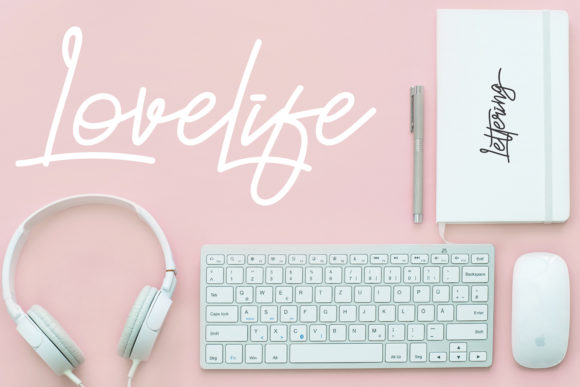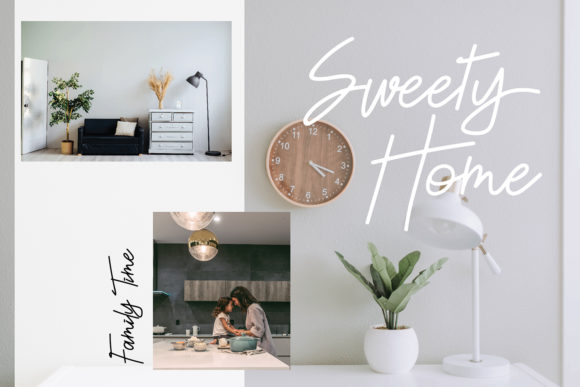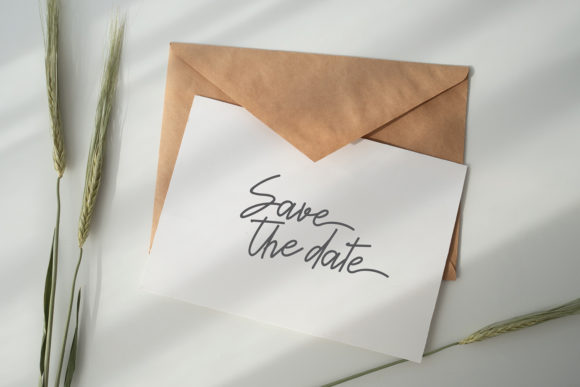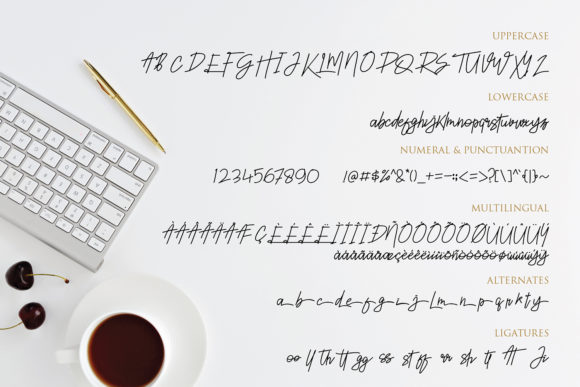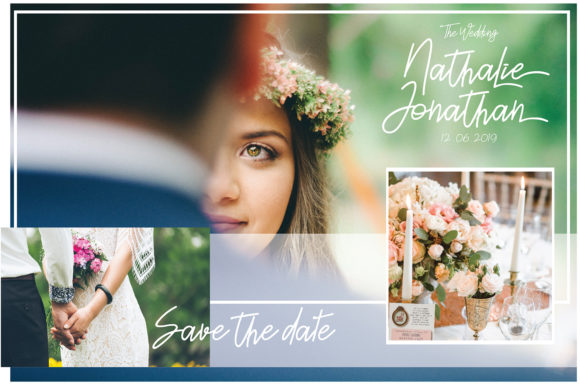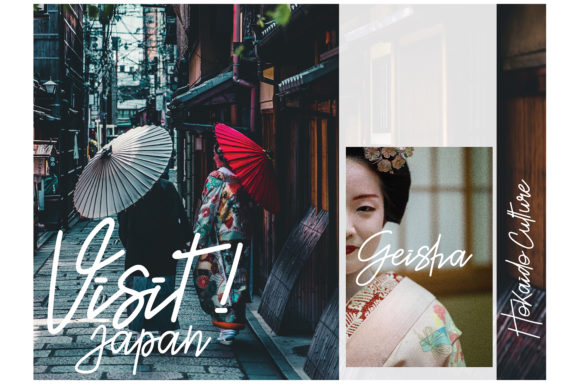
Introduction to Lomesty Font
Have you ever stared at a blank canvas, wondering where to begin on your next creative project? The cursor blinks, and your mind goes blank. But then, the spark strikes. You envision the perfect font to bring your design to life – and that’s where Lomesty Font comes in.
Lomesty Font is a delightful script font that exudes classic charm with a friendly twist. Its timeless style makes it the perfect addition to any design project, from wedding invitations to social media graphics. Whether you’re working on a free download or a high-end campaign, Lomesty Font’s versatility is unmatched.
For designers, having access to a high-quality font like Lomesty Font is invaluable. It saves time, boosts creativity, and elevates your designs to the next level. With its transparent background and seamless integration, Lomesty Font is a design resource you won’t want to live without.
Key Features of Lomesty Font
- Features a unique, eye-catching design that adds a touch of sophistication to any project.
- Perfect for designers, artists, and creatives looking for a high-quality design resource to elevate their projects.
Honest Review: Lomesty Font
As a designer, I’m always on the lookout for high-quality design resources to elevate my creative projects. Recently, I had the chance to try out the Lomesty Font, and I must say, it’s been a game-changer.
- ✨ High-quality design: The Lomesty Font boasts a sleek, modern design that’s perfect for any creative project.
- ✨ Transparent background: This feature makes it incredibly easy to use the font in any design scenario, from graphics to web design.
- ⚠️ Limited font styles: While the Lomesty Font is a high-quality design, it’s limited to a single style, which might not be ideal for designers who require a range of options.
Overall, I’m thoroughly impressed with the Lomesty Font. It’s a fantastic addition to any designer’s toolkit, and I highly recommend it to anyone looking for a high-quality, free design resource. With its sleek design and transparent background, it’s perfect for a wide range of creative projects.
Using in Creative Projects
With the Lomesty Font installed, you’re ready to use it in your creative projects. This versatile design resource is perfect for a variety of applications, including logos, branding, and marketing materials.
Tips for Getting the Most Out of Lomesty Font
For optimal results, use the Lomesty Font in combination with other design elements to create a cohesive and visually appealing design. Experiment with different font sizes, colors, and layouts to find the perfect balance for your project.
The Lomesty Font is ideal for a wide range of creative projects, including business cards, brochures, and social media graphics. Its unique style and high-quality design make it a great choice for anyone looking to add a touch of elegance to their branding and marketing materials.
Does the Lomesty Font have a transparent background?
Yes, the Lomesty Font has a transparent background, which makes it ideal for use in designs with complex backgrounds or images. The font’s transparent background allows you to easily combine it with other design elements, creating a seamless and visually appealing design.